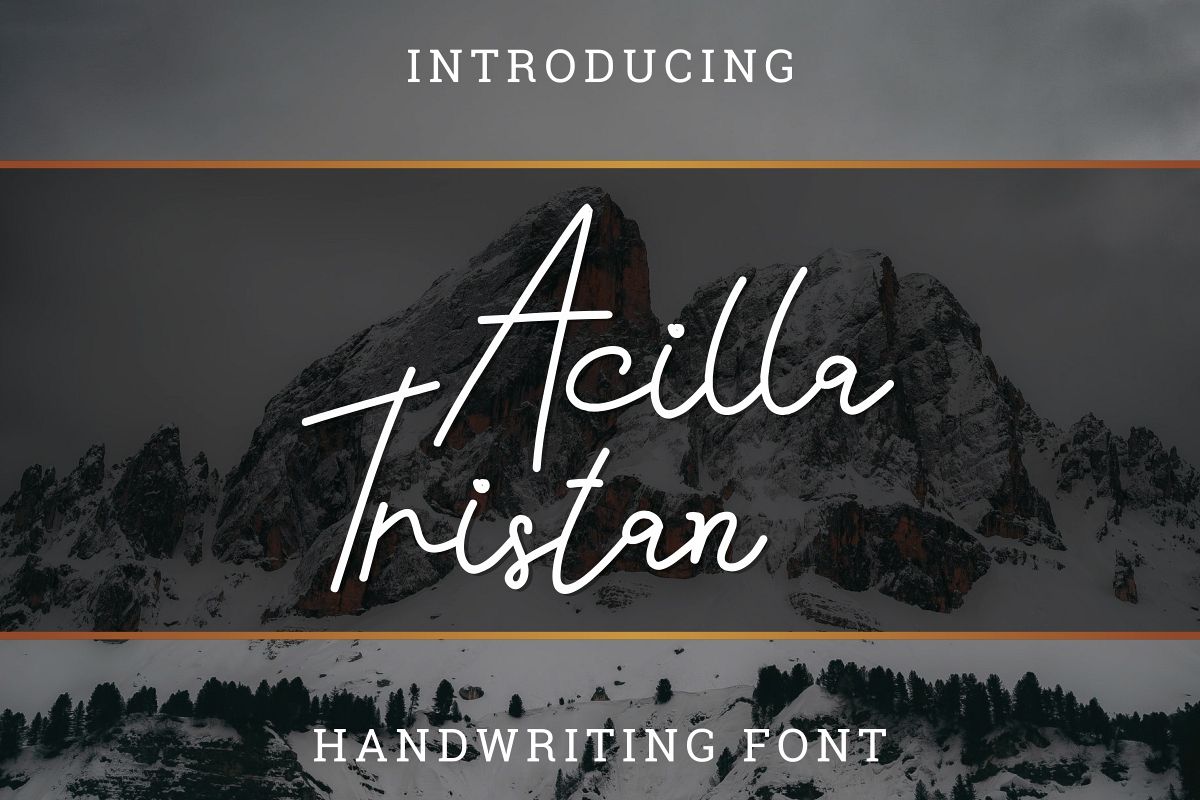
Acilla Tristan
Edric Studio present to you : Acilla Tristan
This is a classic signature script font.  It has a unique, elegant, beautiful and stylish glyphs. Will be Great for branding, logo, stationery, business card, signage, flyer, brochure etc. Acilla Tristan has many alternate glyphs and it supports many international languages.Here are What you’ll get on package: